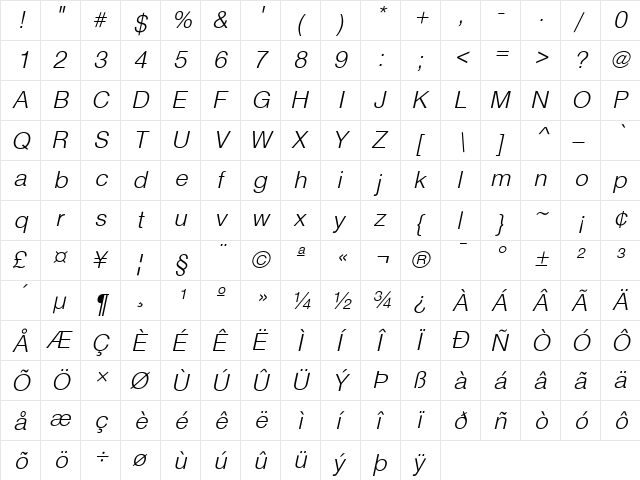
Helvetica-Light Oblique Font Preview
Design Context for Helvetica-Light Typeface
Helvetica-Light is a composed and adaptable typeface that performs quietly and consistently across a wide range of design contexts. The dynamic lean of this cut emphasises speed and emphasis in any layout. The delicate stroke weight brings airiness and refinement to layouts.
Pro Tip: Try Helvetica-Light for annotation and caption copy alongside an upright companion — the contrast in angle creates a dynamic but ordered typographic system.